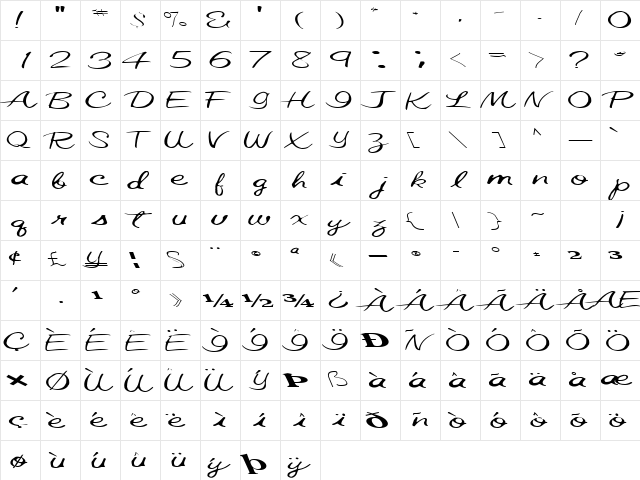
ElasticTrainFont59 Regular
Design Context for ElasticTrainFont59 Typeface
ElasticTrainFont59 is a composed and adaptable typeface that performs quietly and consistently across a wide range of design contexts.